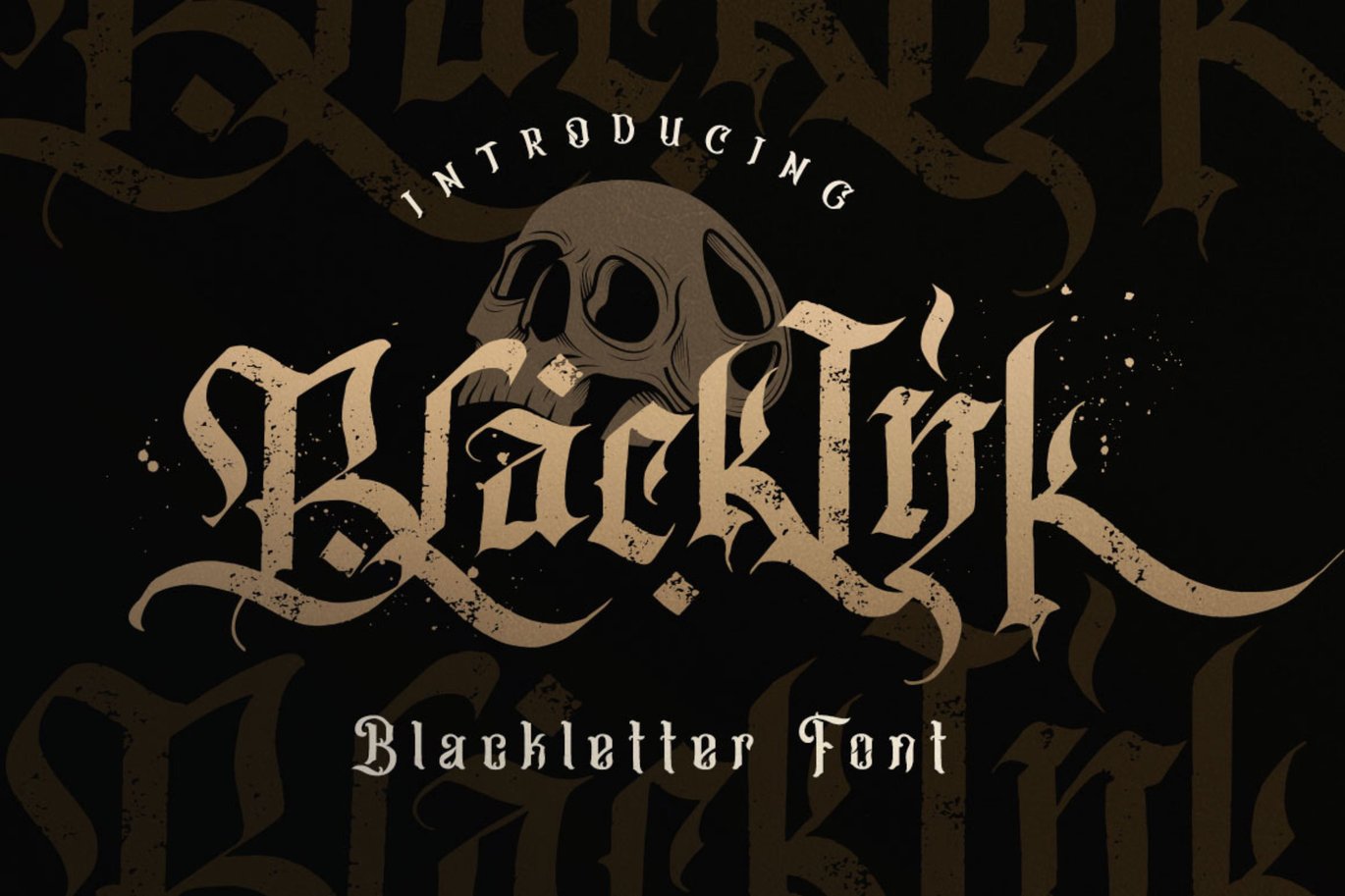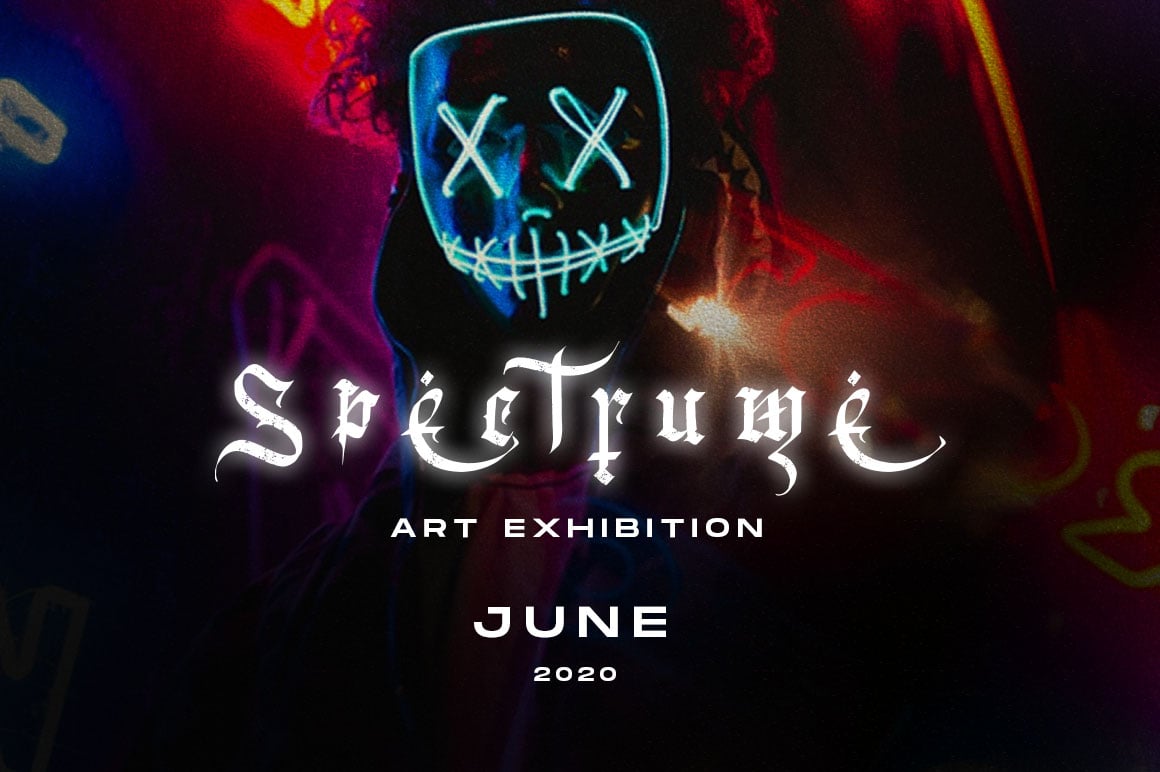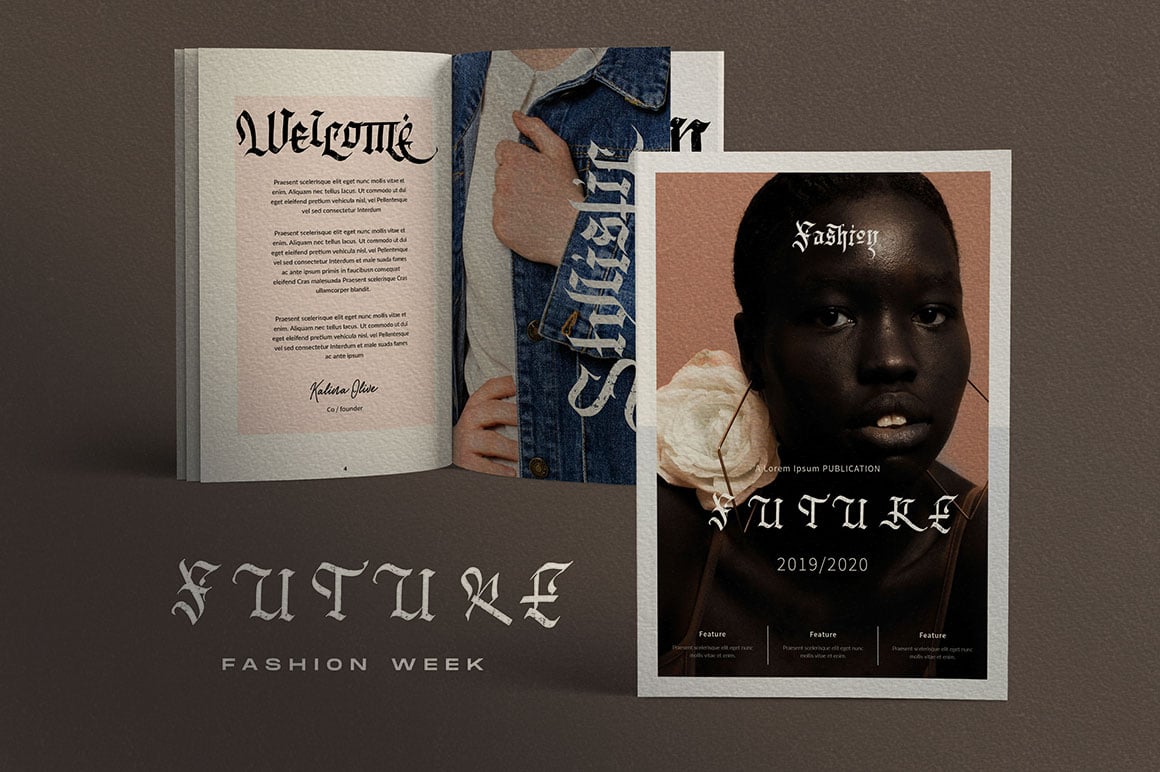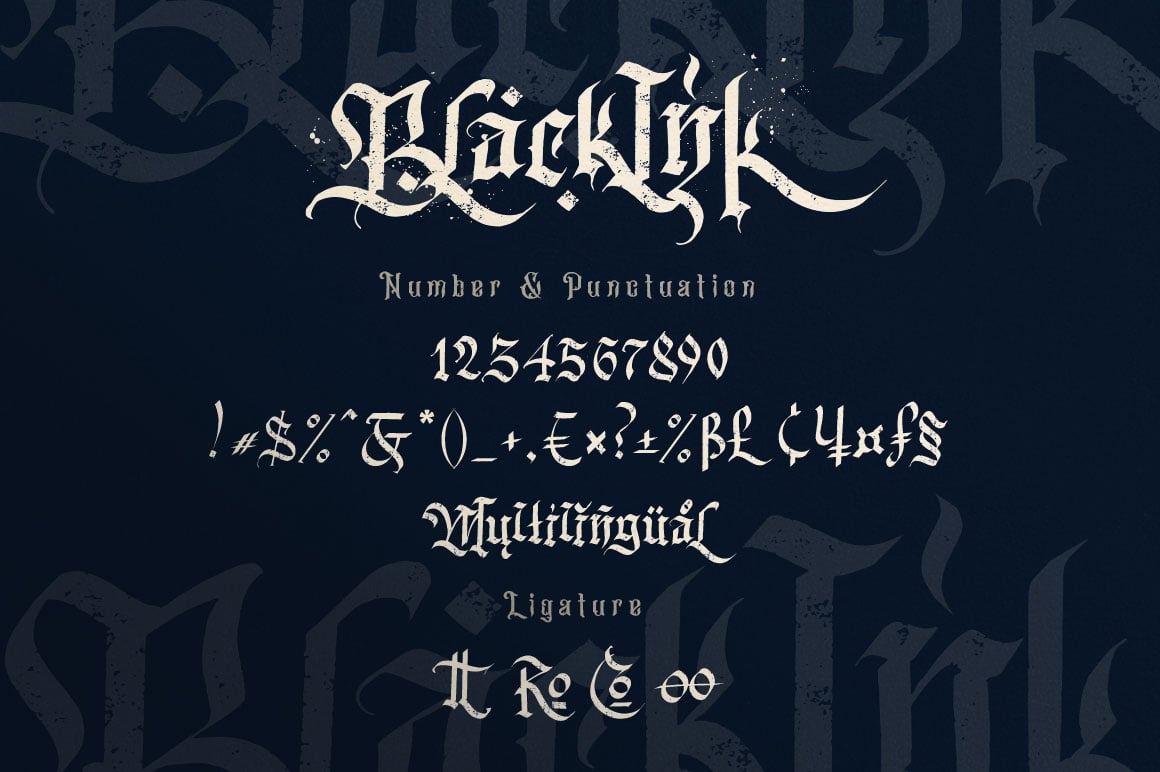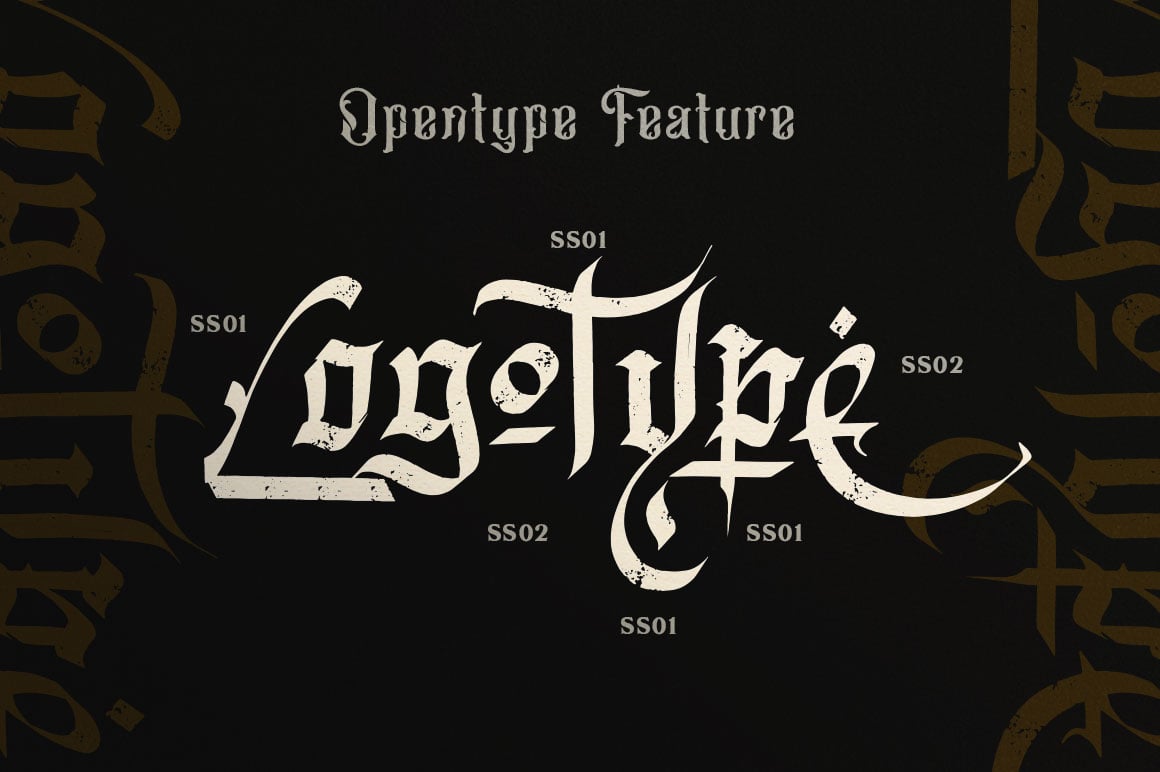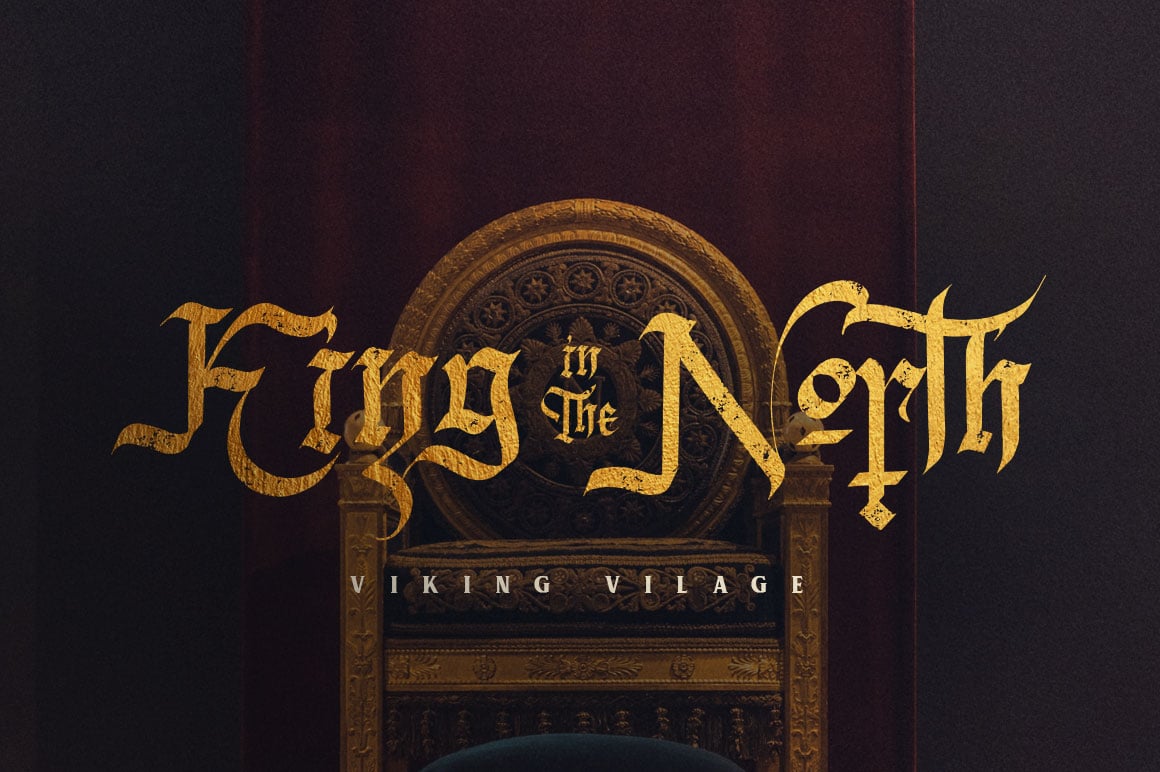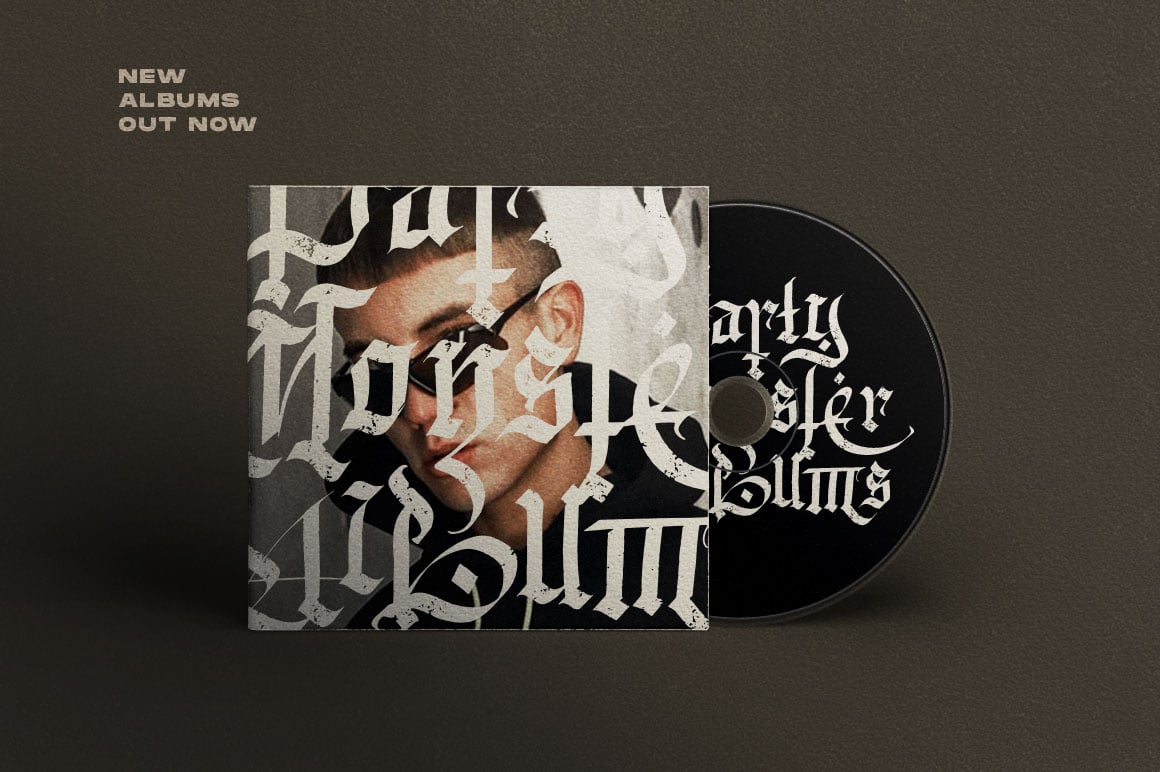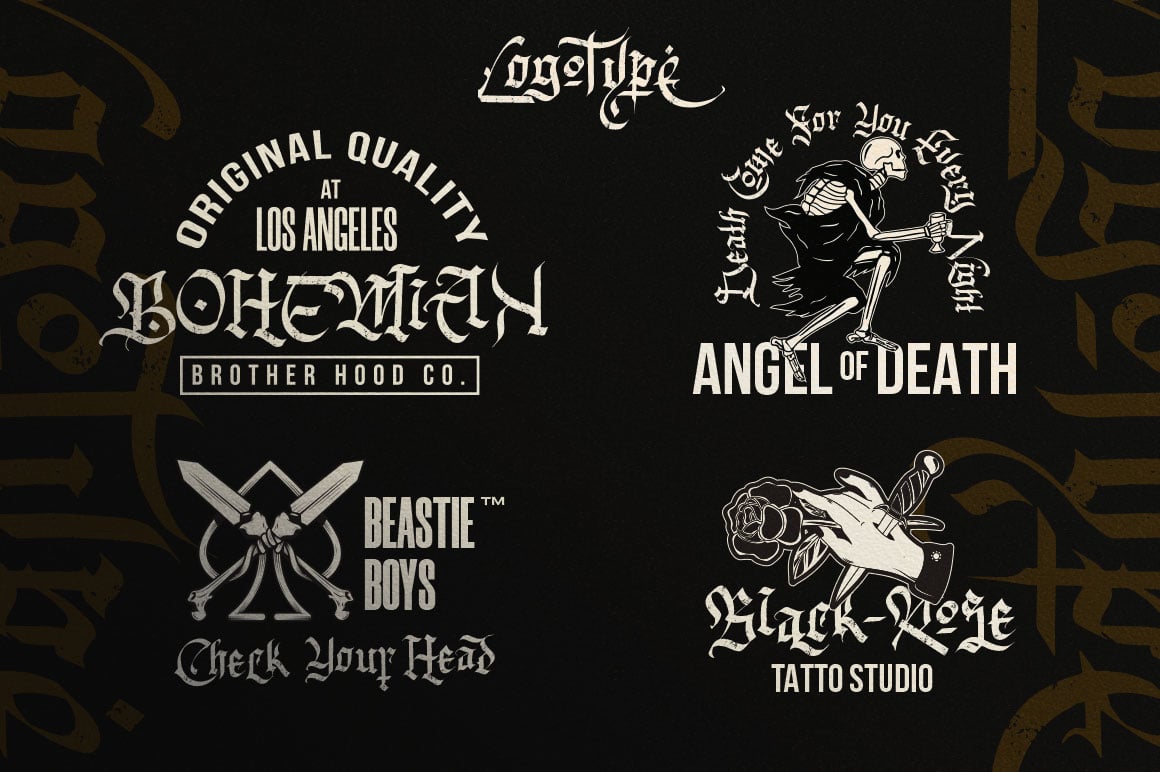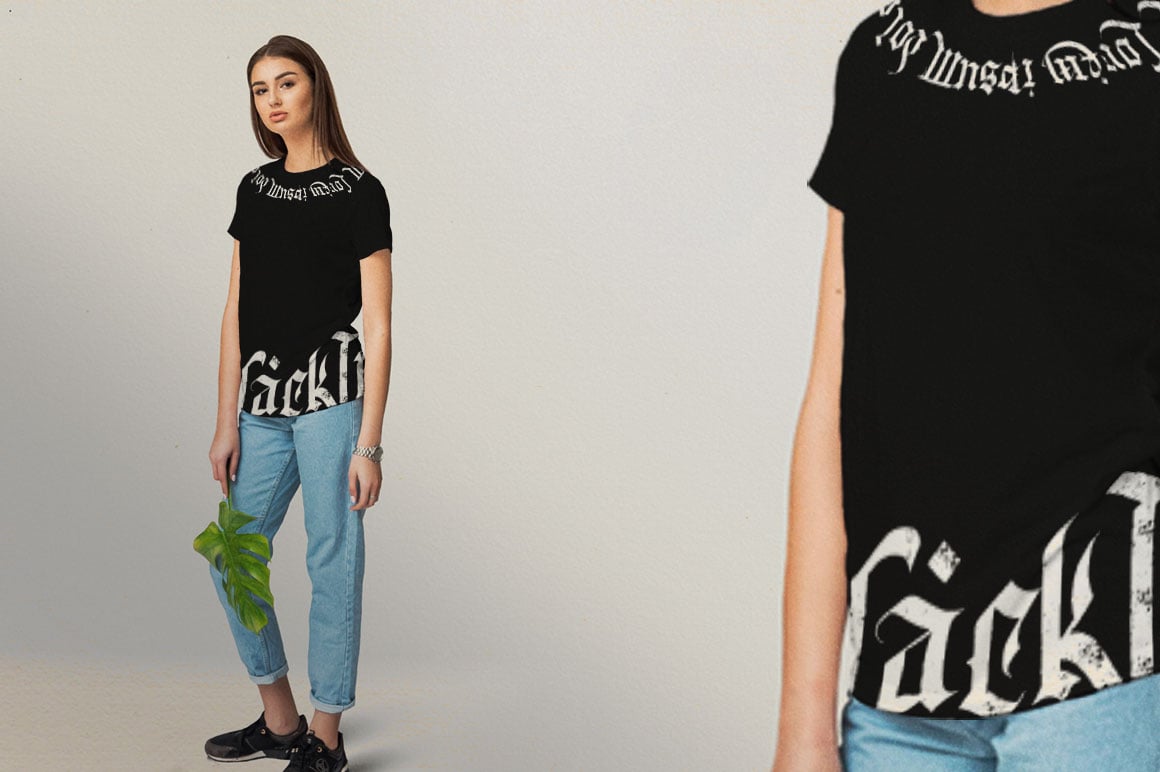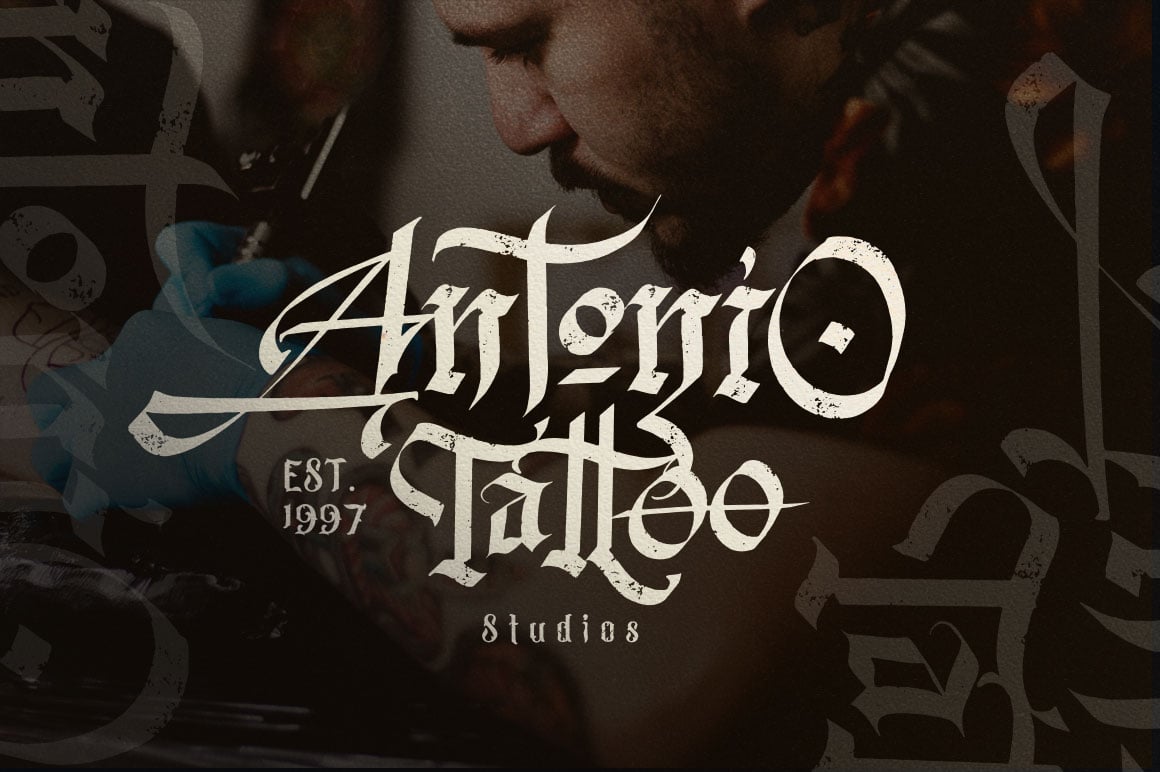
Blackink – Blackletter Font
Blackink is Modern Calligraphy with blackletter style this font with real hand-painted wet brush look. Ideal for signature, logos, handwritten quotes, product packaging, header, poster, merchandise, social media & greeting cards.
FEATURE :
- Alternative Character
- Multilangual
- Stylistic Alternate
- Swash